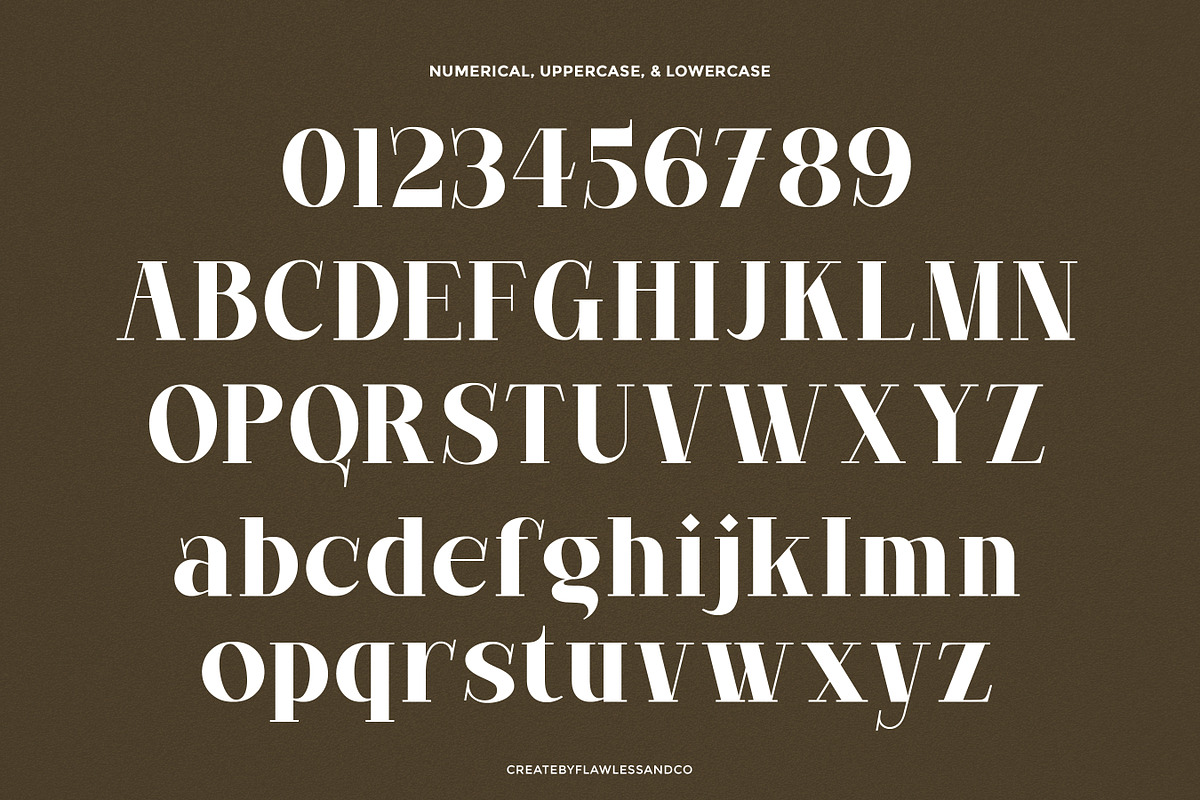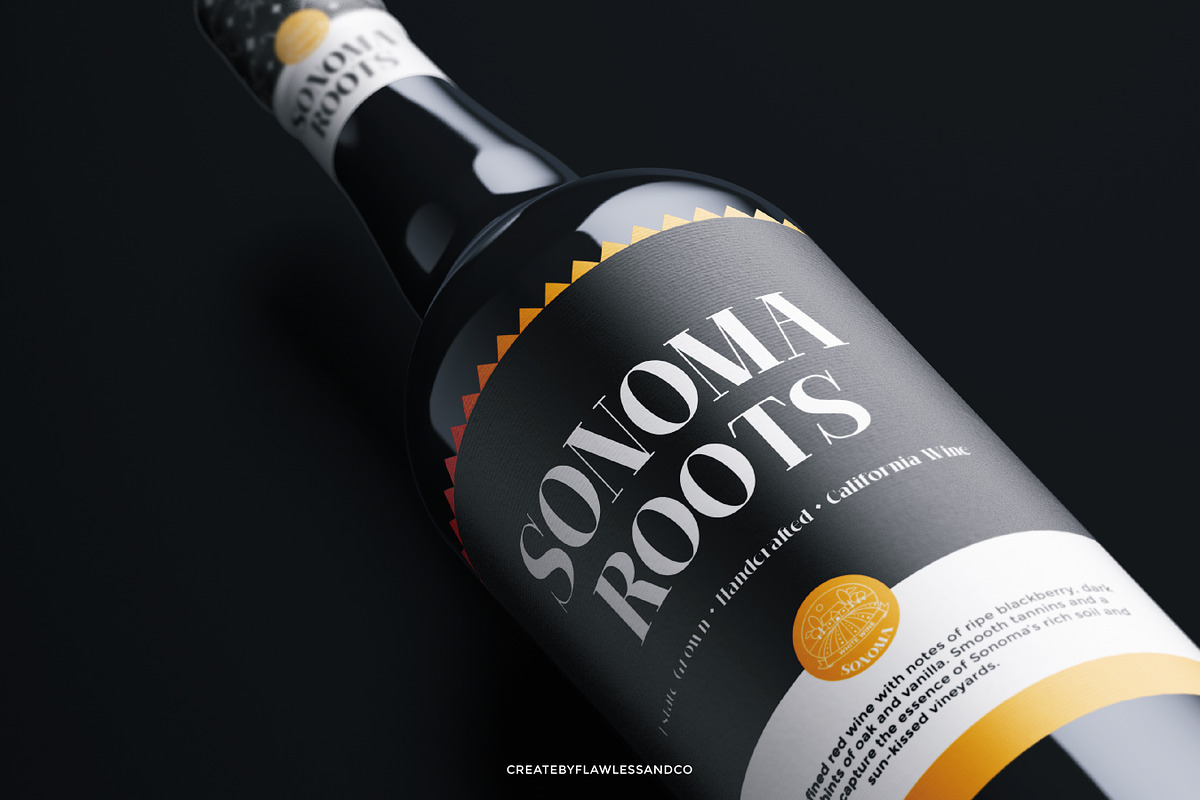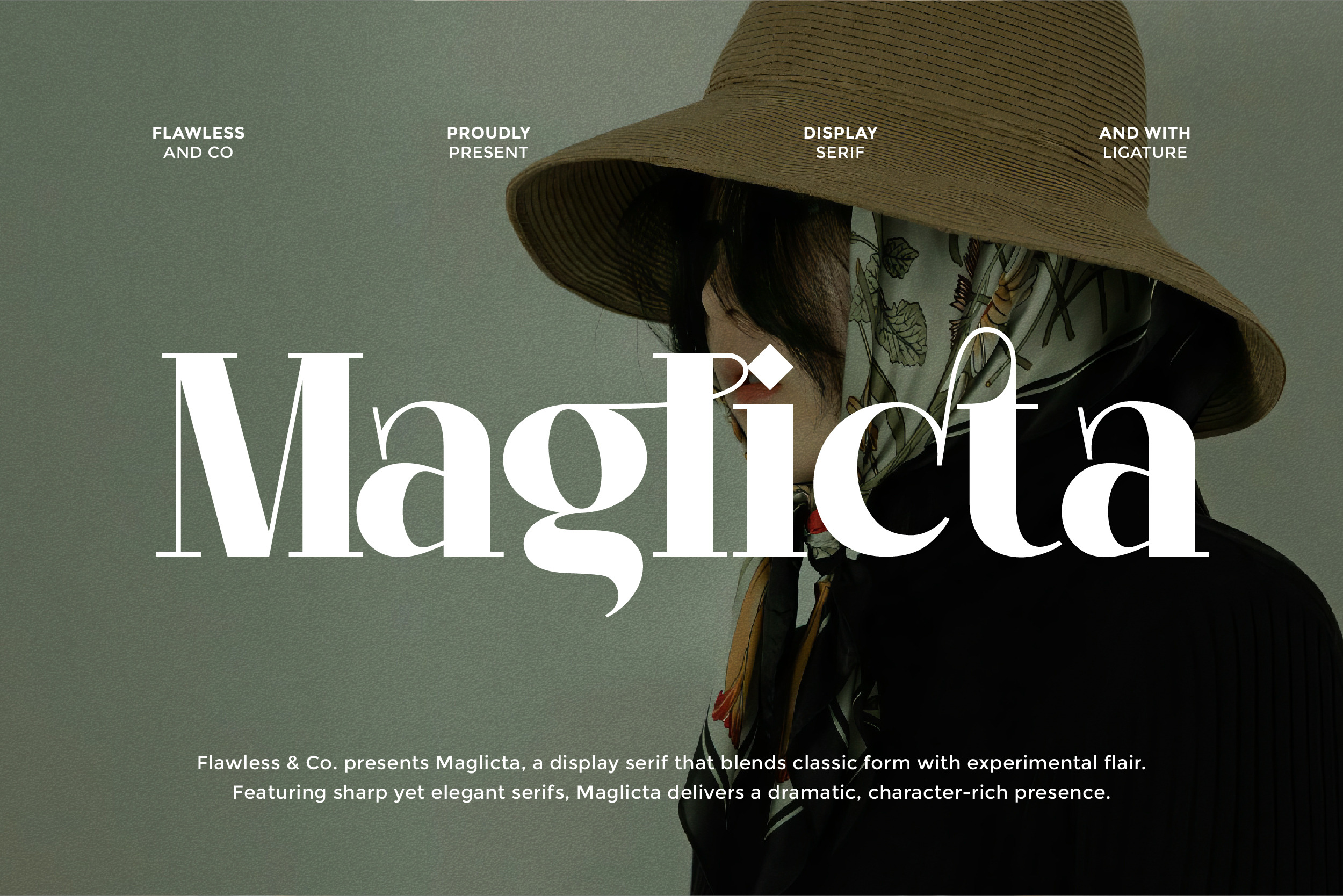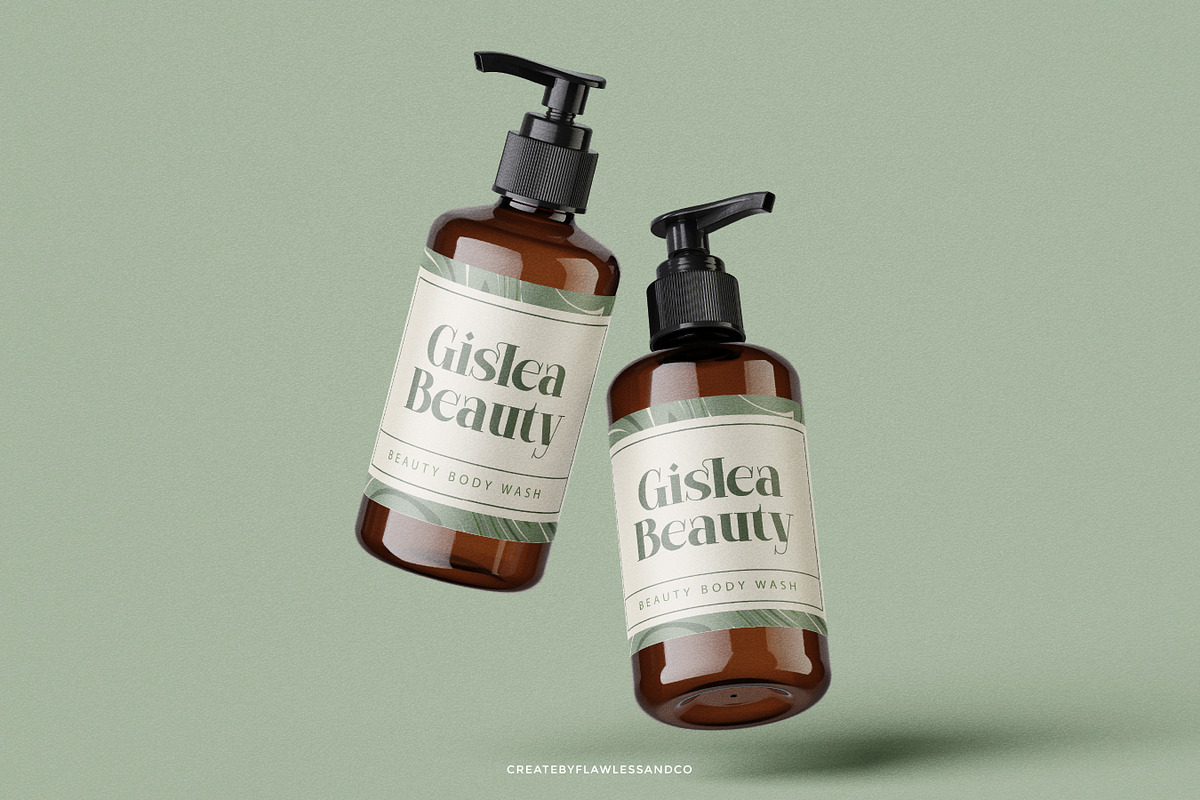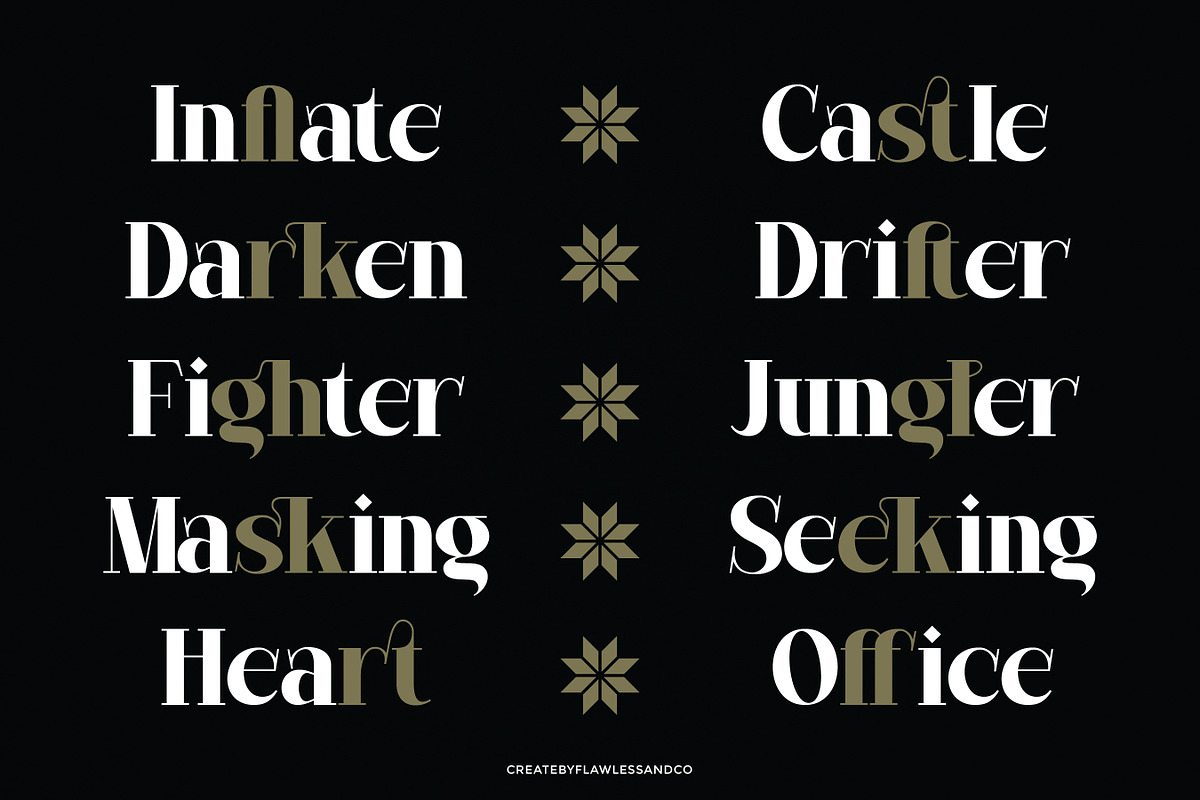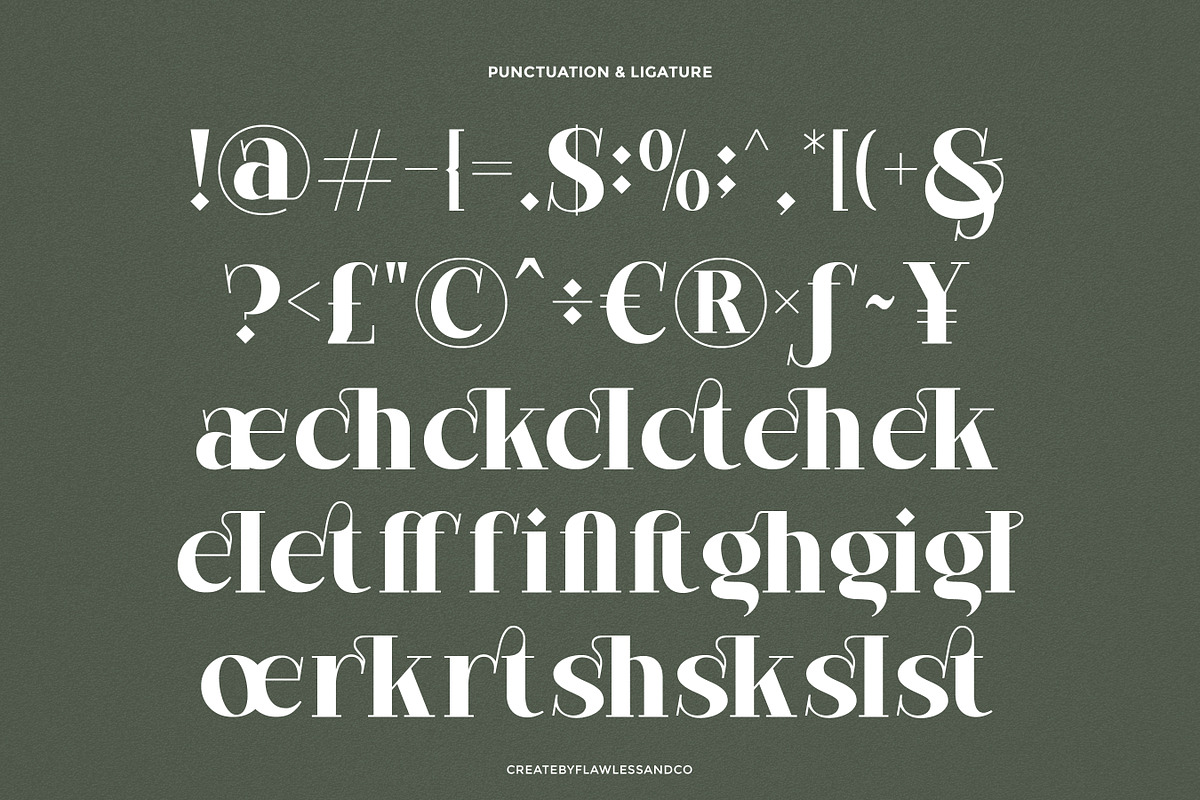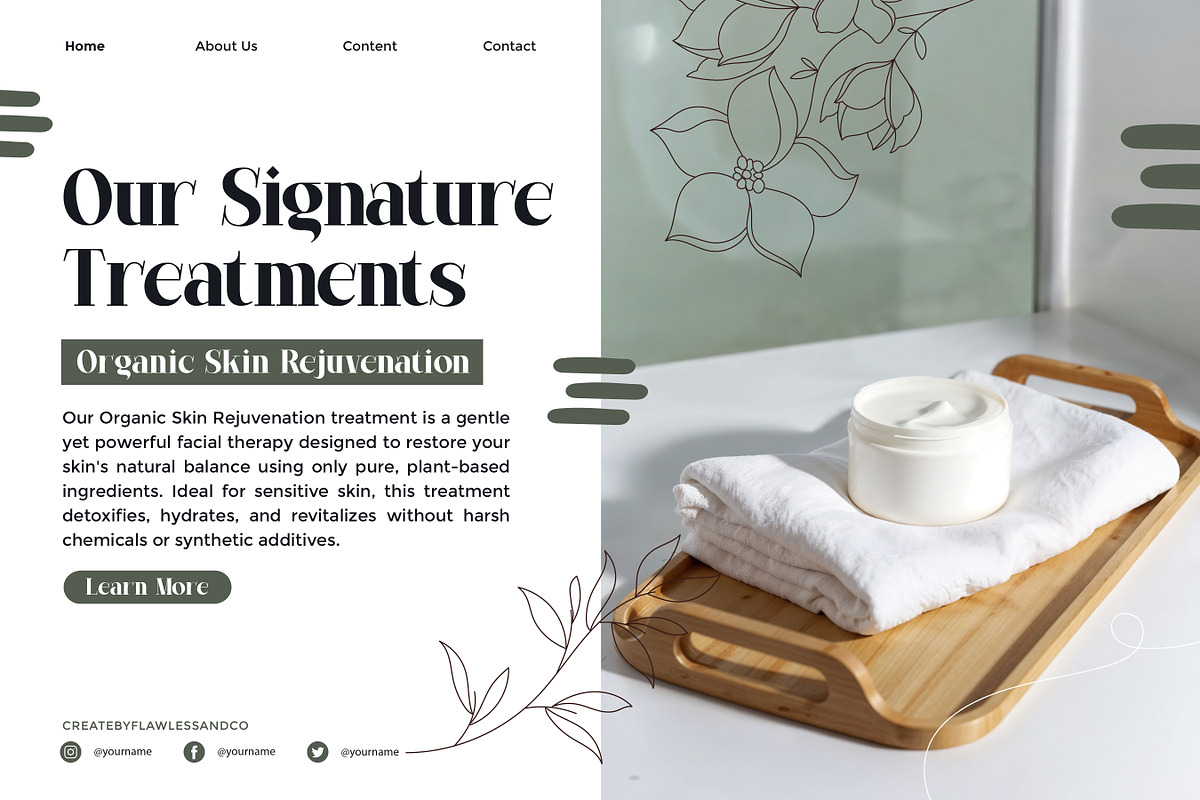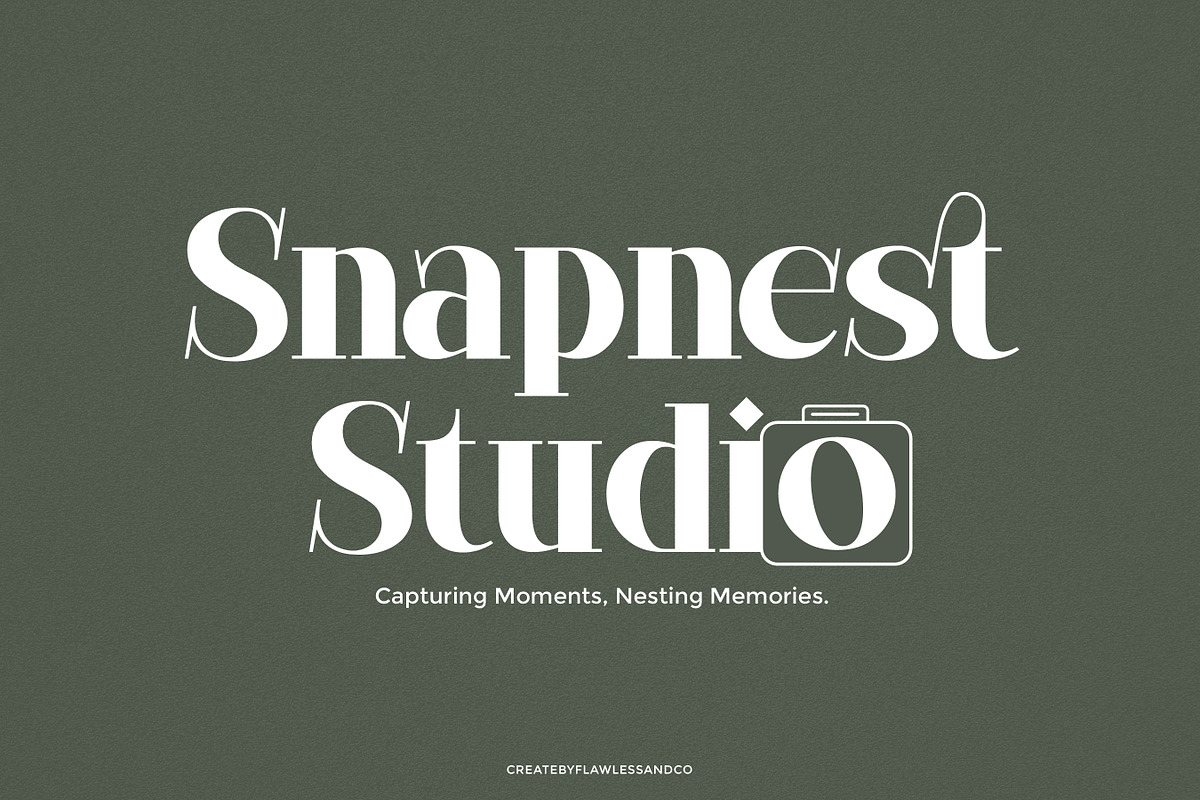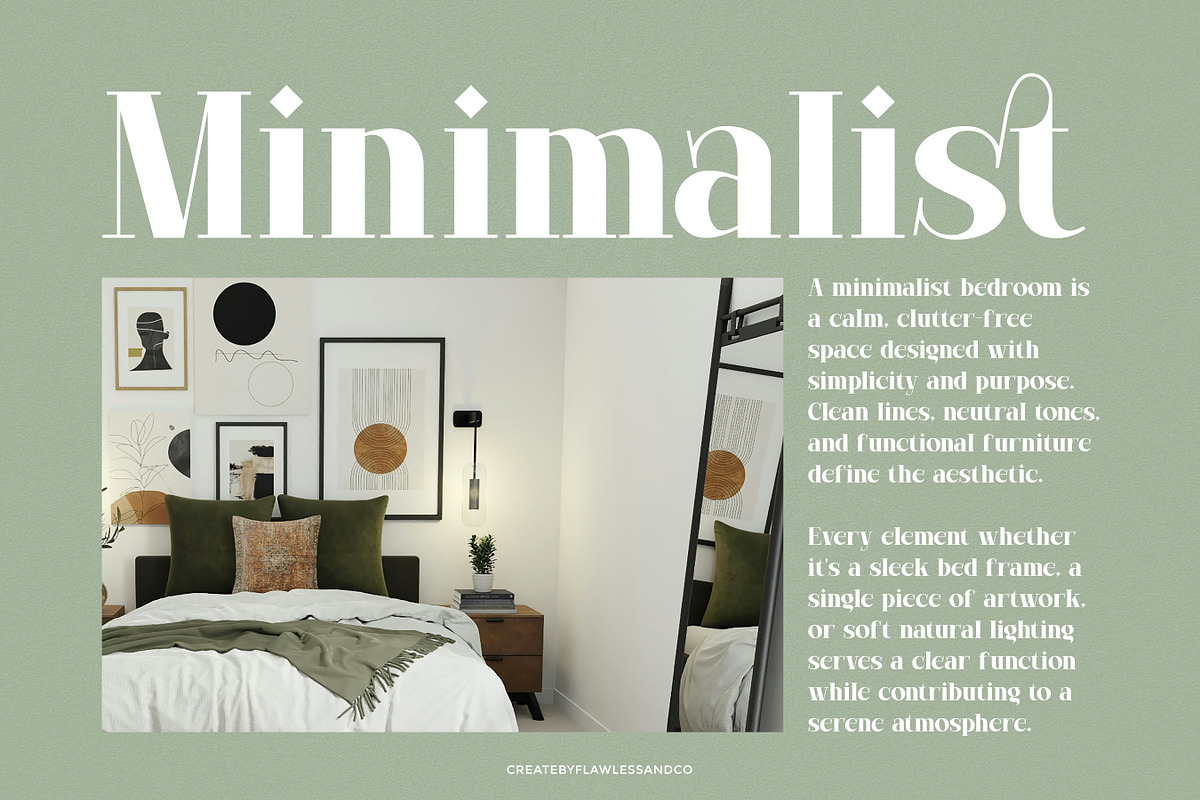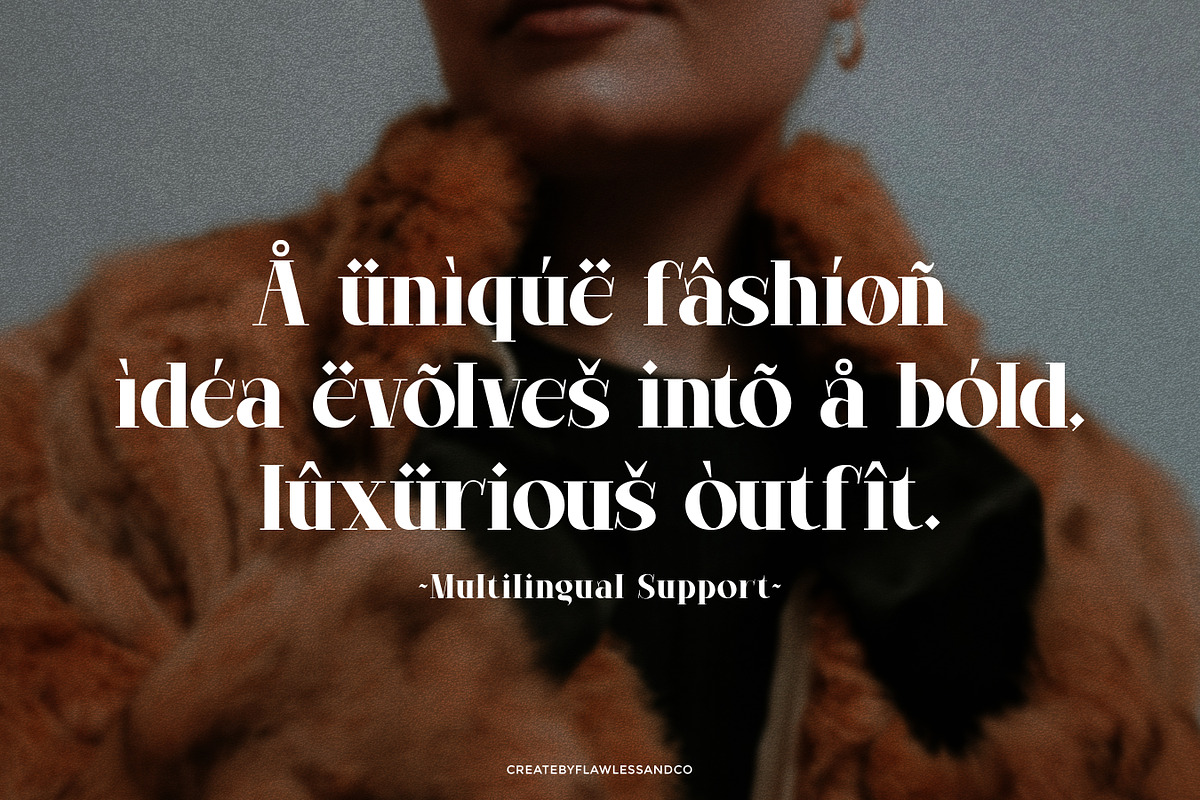
Maglicta - Display Serif Font
Maglicta - A Display serif Font
MAGLICTA is a striking serif display font that exudes sophistication and confidence. With its sharp contrasts, elegant curves, and bold presence, MAGLICTA is made to stand out in any visual composition. Perfect for designers seeking a luxurious and timeless typeface, MAGLICTA blends classic charm with a modern twist. Whether you’re crafting high-end branding, editorial layouts, or standout logo designs, MAGLICTA delivers refined elegance and impactful style in every letterform.
Who Should Use MAGLICTA?
Maglicta is perfect for designers, creatives, and brand builders who seek timeless elegance in their work. Whether you’re creating luxury branding, stylish editorial layouts, or high-end product packaging, Maglicta adds a refined, sophisticated touch that enhances any visual presentation.
A Must-Have Font for Brand and Logo Creators and Designers Maglicta is more than just a typeface — it's a visual statement. With its graceful strokes and refined details, Maglicta is crafted for professionals who demand style, clarity, and distinction in their branding and logo work. This elegant serif font elevates your designs with a luxurious feel, making it an essential tool in every designer’s collection.
Why Choose Maglicta for Brand and Logo Projects? MAGLICTA stands out with its elegant curves, stylish serifs, and refined presence—making it the perfect choice for premium branding. Whether you're designing a fashion label, beauty product, or upscale lifestyle brand, MAGLICTA adds a touch of sophistication and timeless charm. Its high contrast and classy letterforms ensure your logo or brand identity feels both iconic and memorable, helping you leave a lasting impression.
Suitable For:
- Fashion branding & beauty product logos
- Luxury lifestyle brands and boutique labels
- Editorial layouts, magazine headlines, and lookbooks
- Wedding invitations & elegant stationery
- Social media graphics with a premium feel
- Packaging design for perfumes, cosmetics, and more
- High-end marketing materials and presentations